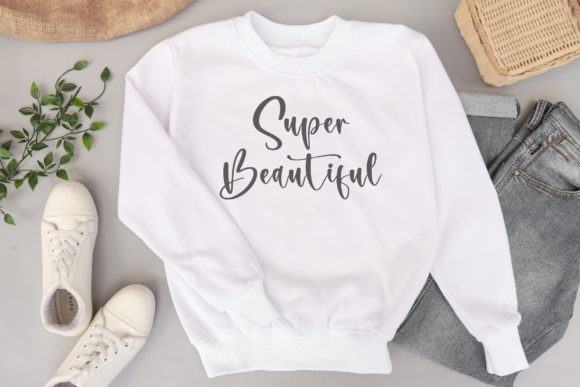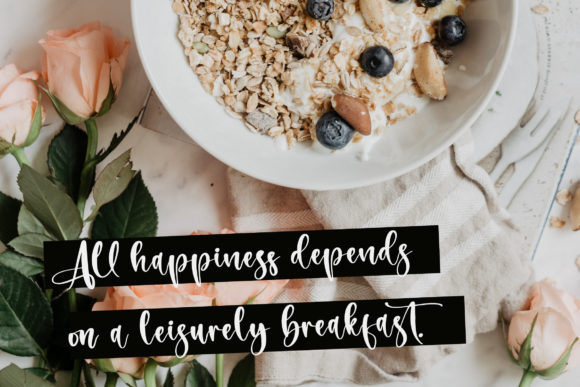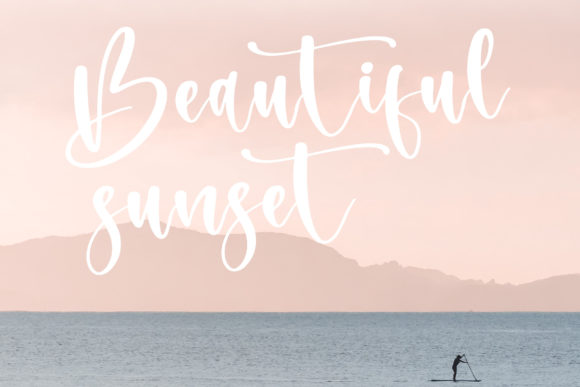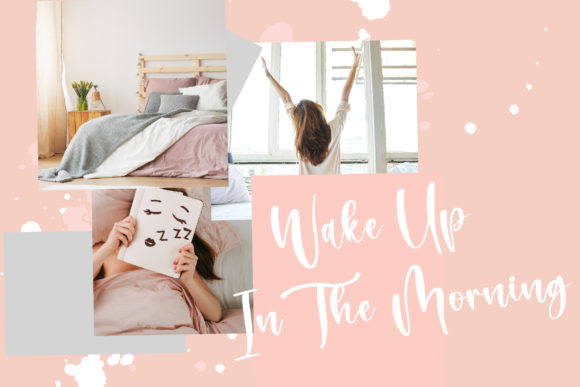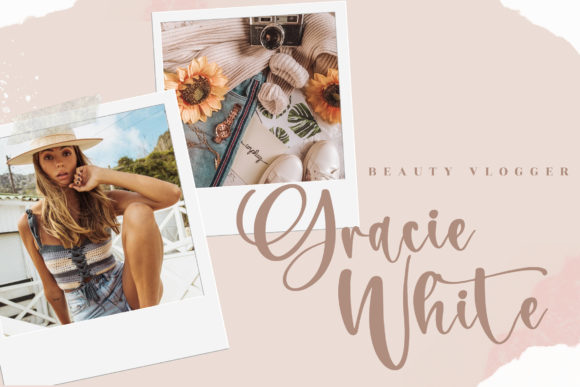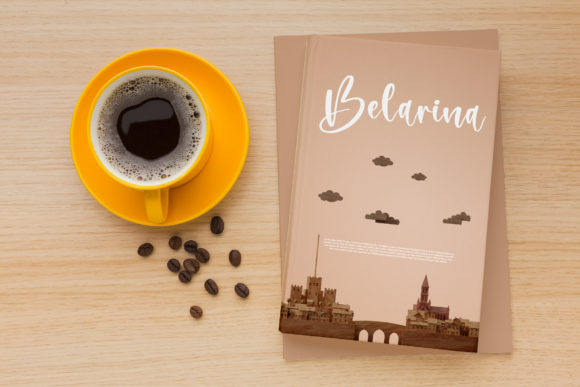
Introducing Belistica Beauty Font: Elevate Your Designs with Timeless Elegance
In the world of typography, a beautiful font can make all the difference in creating stunning designs that capture the essence of your brand or project. If you’re on the hunt for a lovely and timeless handwritten font, look no further than Belistica Beauty. This gorgeous font is perfect for creating eye-catching logos, branding, and quotes that will leave a lasting impression on your audience.
The Unique Charm of Belistica Beauty
What sets Belistica Beauty apart from other fonts is its unique and beautiful touch. Every letter has been carefully crafted to exude a sense of elegance and sophistication, making it perfect for designers and crafters who want to add a touch of class to their work. Whether you’re creating a logo, branding materials, or social media graphics, Belistica Beauty is the perfect choice.
Belistica Beauty is a versatile font that can be used in a variety of design projects. Designers will love the font’s flexibility and expressiveness, while crafters will appreciate the font’s whimsical and artistic feel. Whether you’re creating:
- Social media graphics and quotes
- Stationery and invitations
Belistica Beauty is the perfect font to bring your designs to life.
Timeless and Elegant
One of the standout features of Belistica Beauty is its timeless quality. Unlike trendy fonts that may quickly go out of style, Belistica Beauty has a classic elegance that will endure for years to come. This makes it an excellent investment for designers and crafters who want to create designs that will stand the test of time.
Key Features of Belistica Beauty
Here are just a few key features that make Belistica Beauty a must-have font:
- Lovely and timeless handwritten design
- Unique and beautiful touch on every letter
- Perfect for creating eye-catching logos, branding, and quotes
- Versatile and flexible, suitable for a variety of design projects
- Classic elegance that will endure for years to come
Get Creative with Belistica Beauty
Ready to elevate your designs with Belistica Beauty? Here are a few ideas to get you started:
- Create a stunning logo for your business or brand
- Design a beautiful social media graphic with a quote or message
- Make a gorgeous invitation or stationery set
- Develop a unique and eye-catching packaging design
Whatever your design project, Belistica Beauty is the perfect font to bring your vision to life.
| Font Name | Belistica Beauty Font |
| Author | Afterpaper |
In conclusion, Belistica Beauty is a truly special font that deserves a place in every designer’s toolkit. With its unique and beautiful touch, timeless elegance, and versatility, it’s the perfect choice for creating stunning designs that will capture the essence of your brand or project. So why wait? Get creative with Belistica Beauty today and see the difference it can make in your designs!